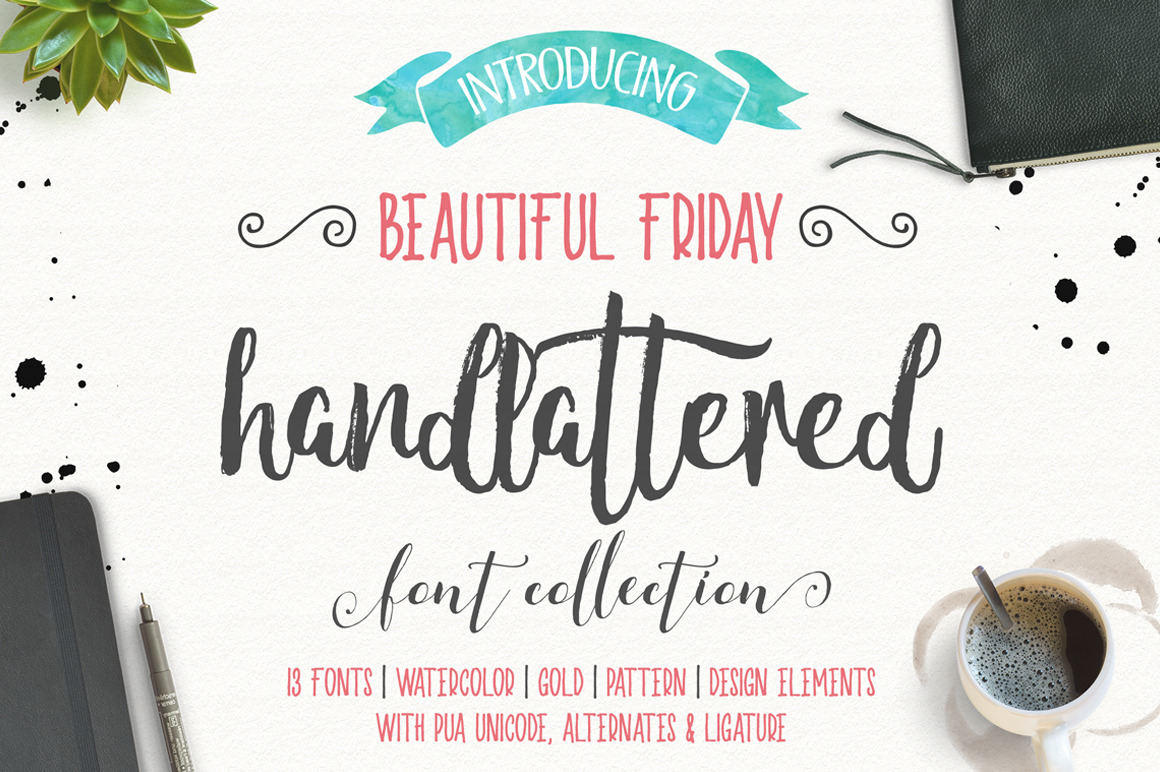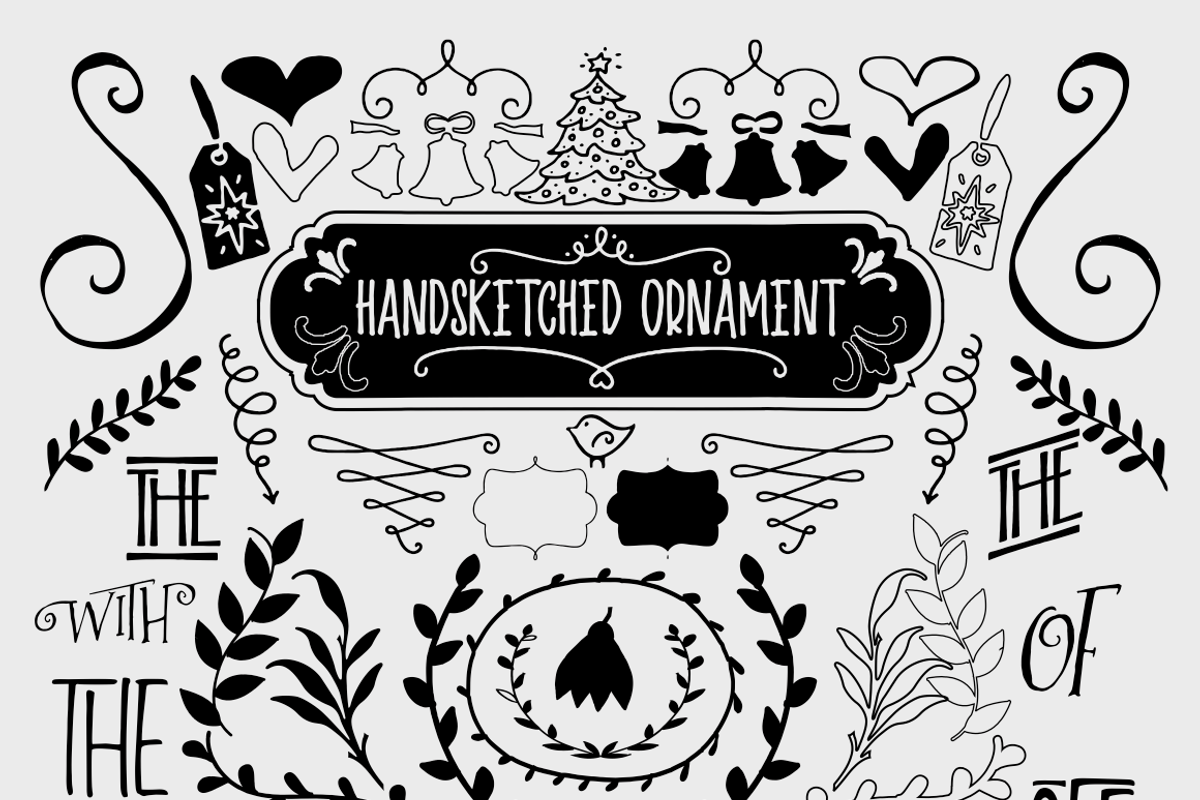
Beautiful Friday (13 Fonts & Extras)
============================== Beautiful Friday ==============================
a new brand from our type foundry. Included 13 handmade fonts from script, brush, brush script and fancy. This a big pack I ever made. And all of this pack dedicated for one person, my source inspiration
- covered all basic character, Uppercase, lowercase, numeral and punctuation
- alternate characters, ligature and disrectionary ligature
Extras/ Bonus
1. Gold glam texture I just added 105 gold seamless textures with 3 different styles, solid, solid stripes and transparent stripes. You can change your own texture, just mix between solid texture and stripes, so you can create unlimited texture like you want. And you can change the color texture using Photoshop. Guidance how to change color included on zip file.
2. Watercolor 30 watercolor textures for your design effect. Make your design look real and beautiful.
3. Pattern 10 Handmade transparent pattern for your background. Available for illustrator and Photoshop styles (.PAT) with 3 styles, solid, gold and watercolor
4. Hand sketched design element Over than 280 hand sketched design elements you get on this pack, to add your element collection.